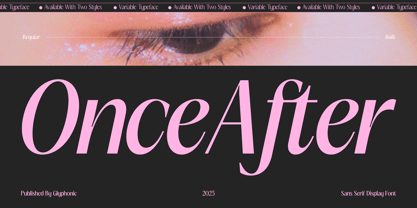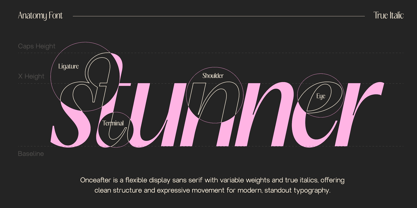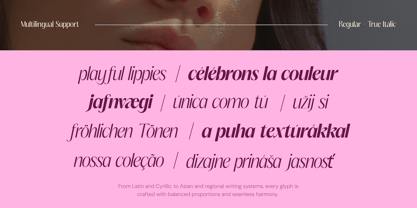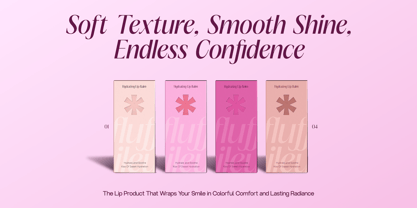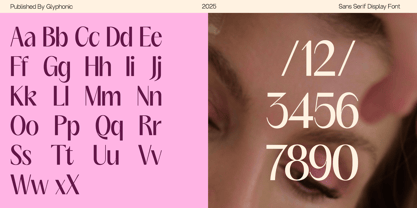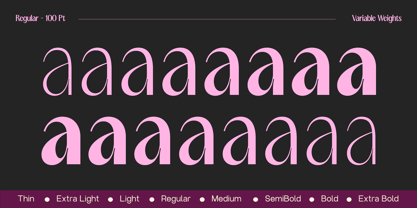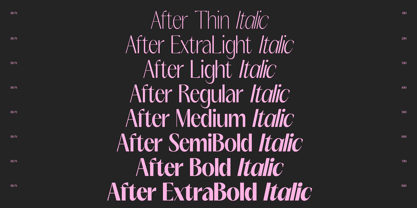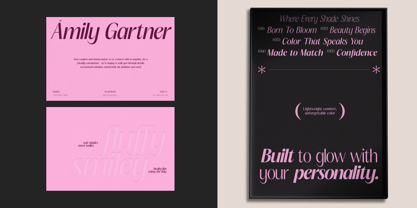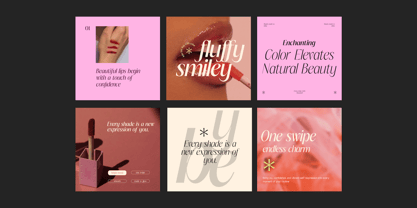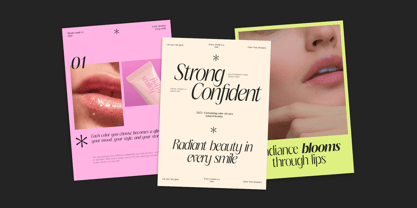
GC Once After
The GC Once After Font Family was designed by Muhammad Hafiizh Solana and published by Onyx Studio. GC Once After contains 16 styles and family package options. More about this family
GC Once After – Display Sans is a striking display typeface crafted for bold presence, modern aesthetics, and visual impact. With clean shapes and a refined geometric style, it delivers a sharp, distinctive voice ideal for eye-catching headlines, branding statements, and contemporary design work. Designed to stand out with simplicity and confidence, GC Once After enhances posters, logos, packaging, editorial layouts, and digital interfaces with a bold, memorable character. Precise detailing and balanced proportions ensure that every glyph appears crisp, stylish, and powerful across various applications. Features: • Uppercase & Lowercase • Numbers & Punctuation • Modern Display Construction • Multilingual Support (170+ Languages) • Elegant Display Sans Construction Bring bold clarity, modern attitude, and a striking visual identity to your design with GC Once After – Display Sans.